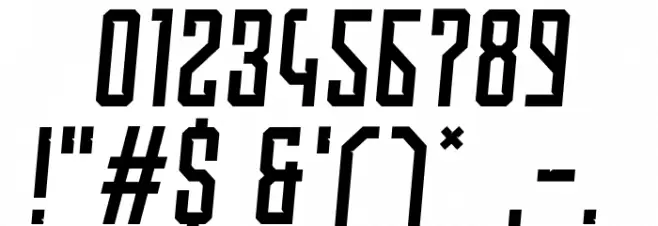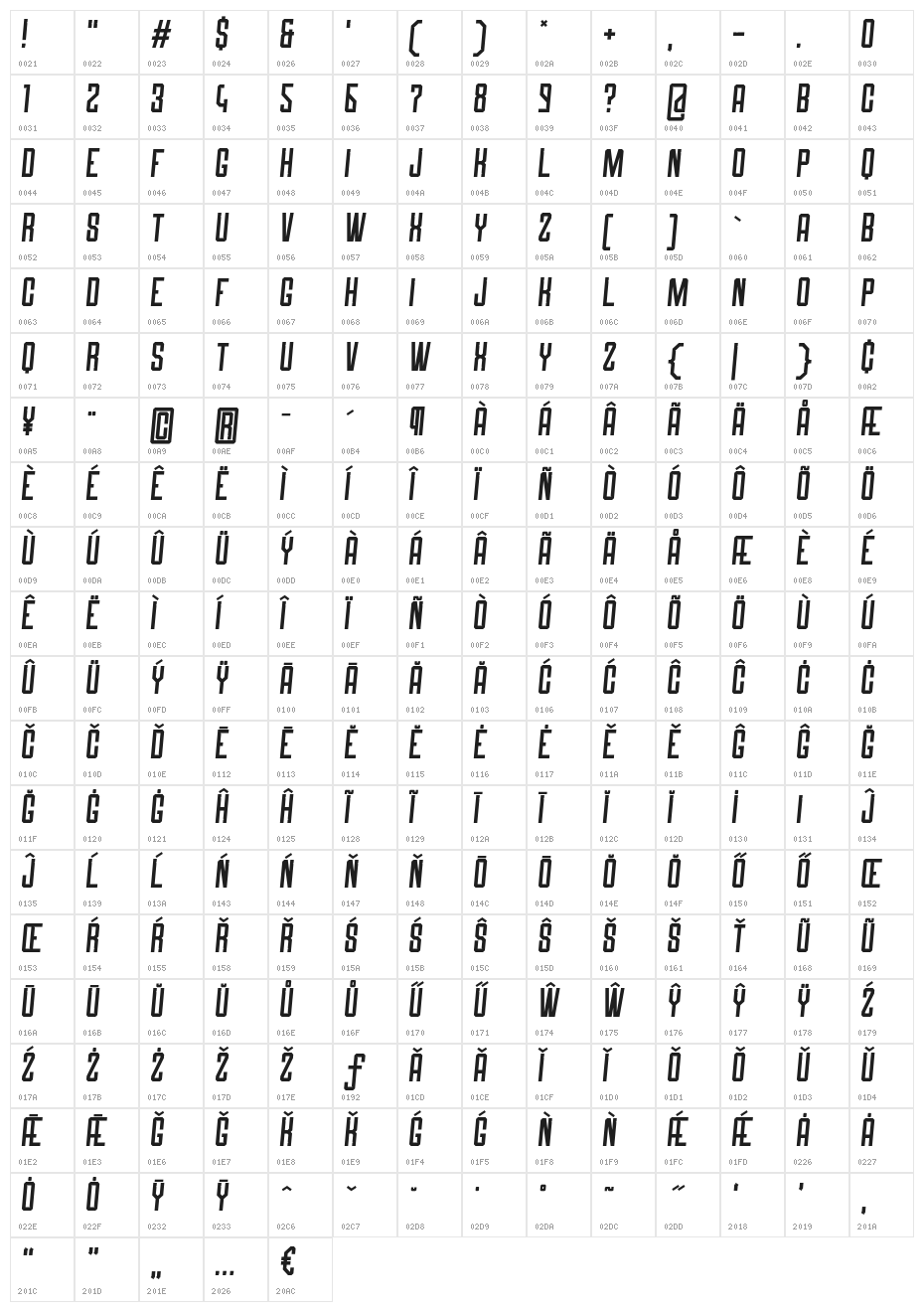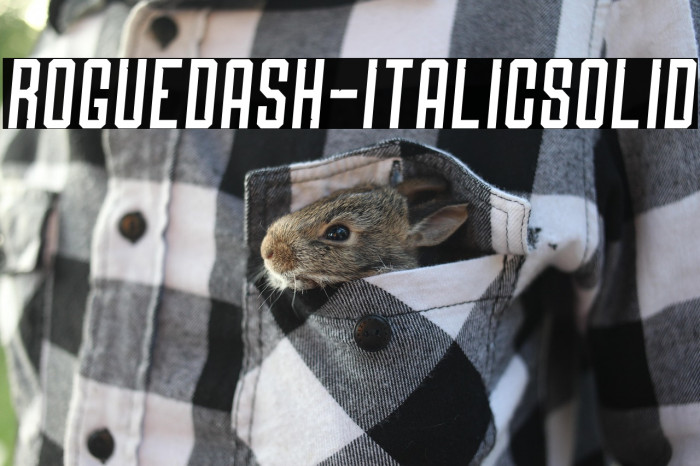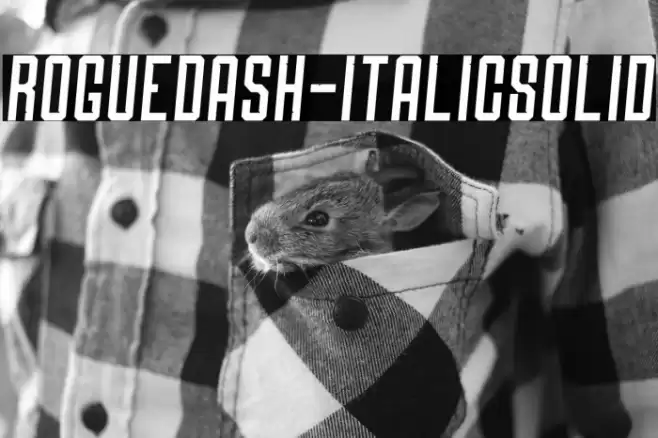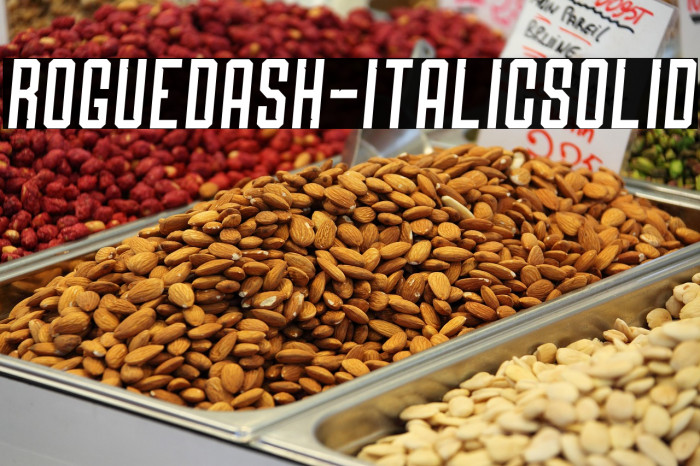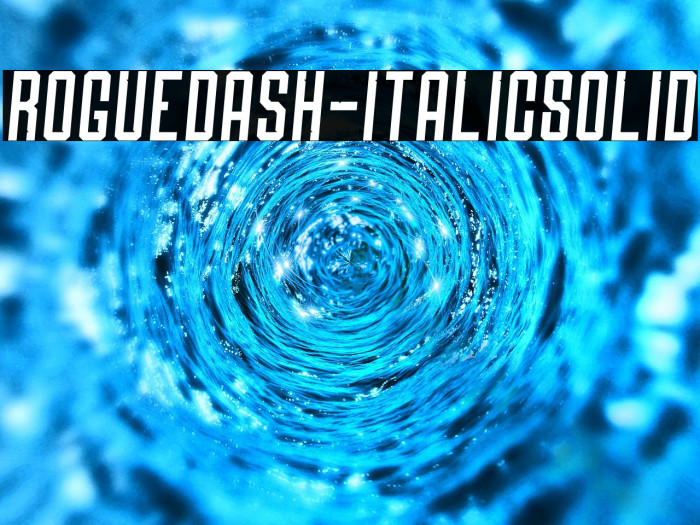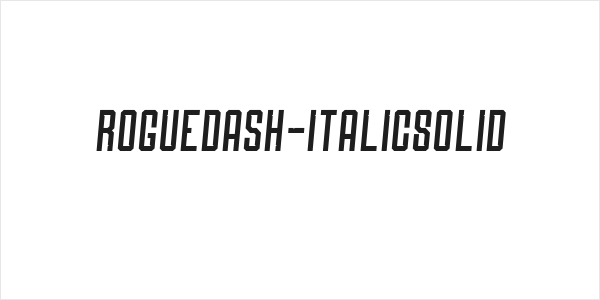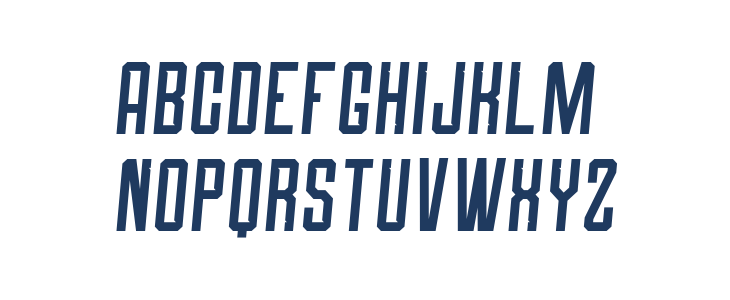
Roguedash-ItalicSolid Font
Roguedash-ItalicSolid Description
This font features a bold, angular design with a distinct italic slant, giving it a dynamic and energetic appearance. The characters are tightly spaced, enhancing the compact and impactful look. The uppercase and lowercase letters maintain a consistent style, with sharp edges and a modern aesthetic. The numbers and special characters follow the same design principles, ensuring uniformity across all glyphs. The overall style is suitable for projects that require a strong, assertive typeface that stands out and captures attention.
Proposed ProjectsIdeal for sports branding, action movie posters, dynamic logos, and edgy editorial design.